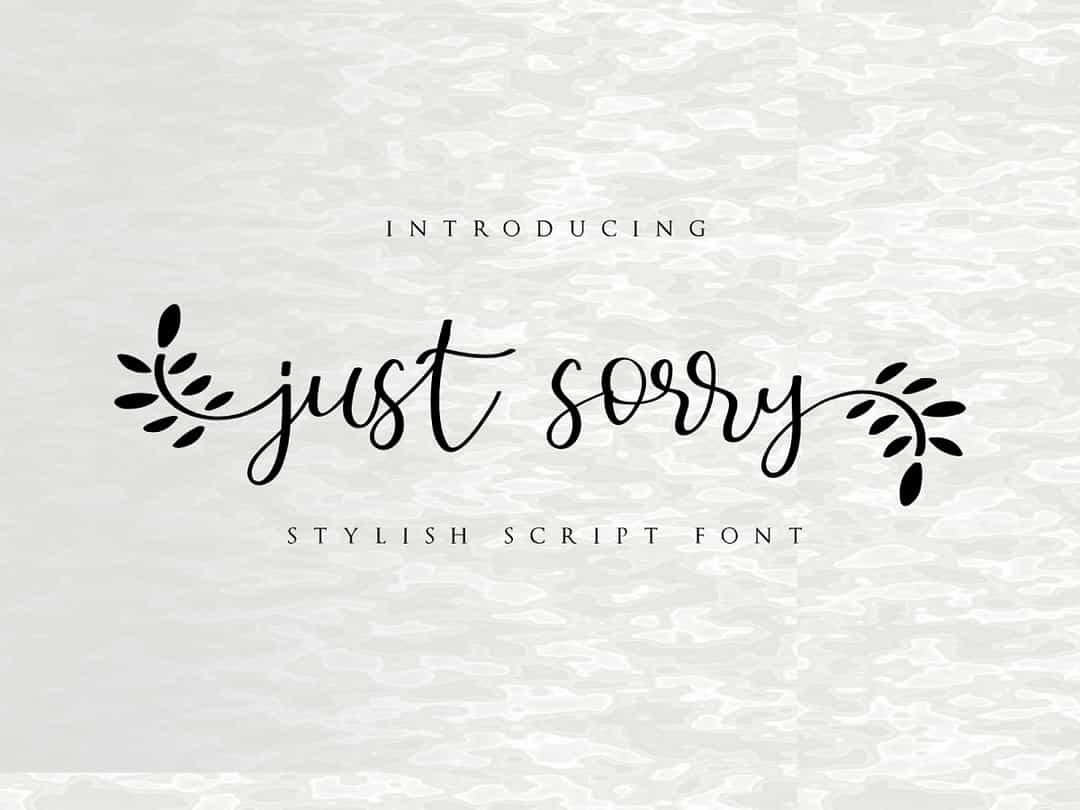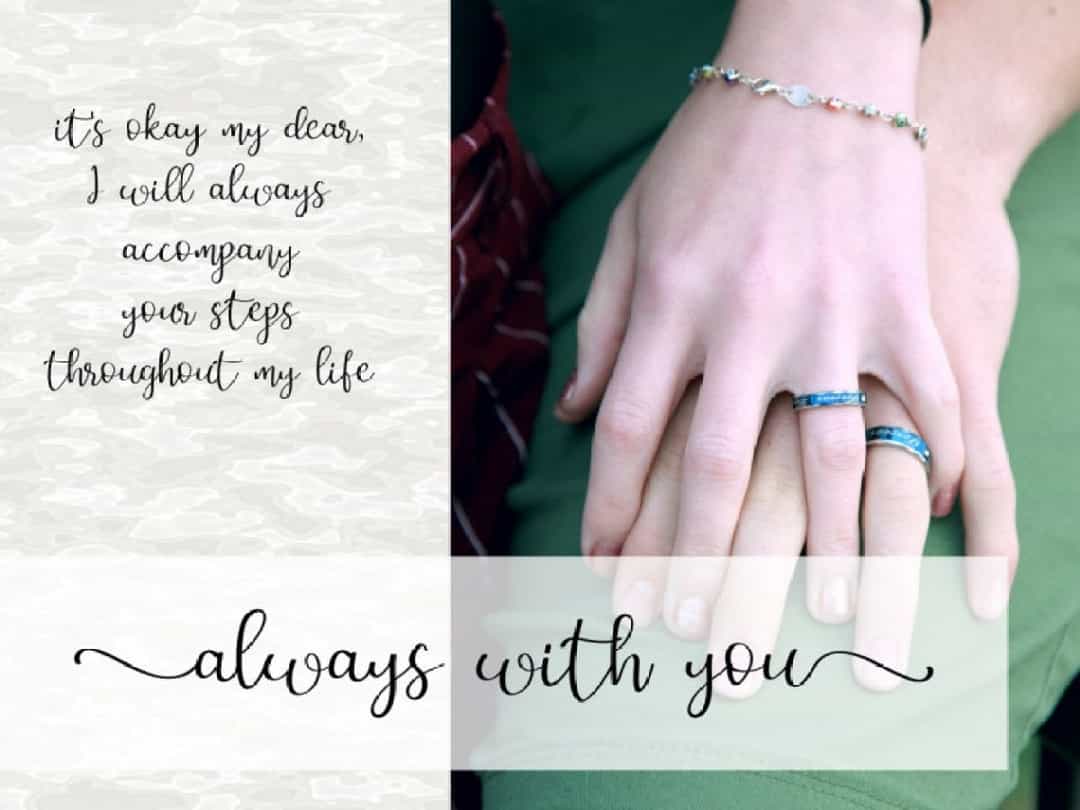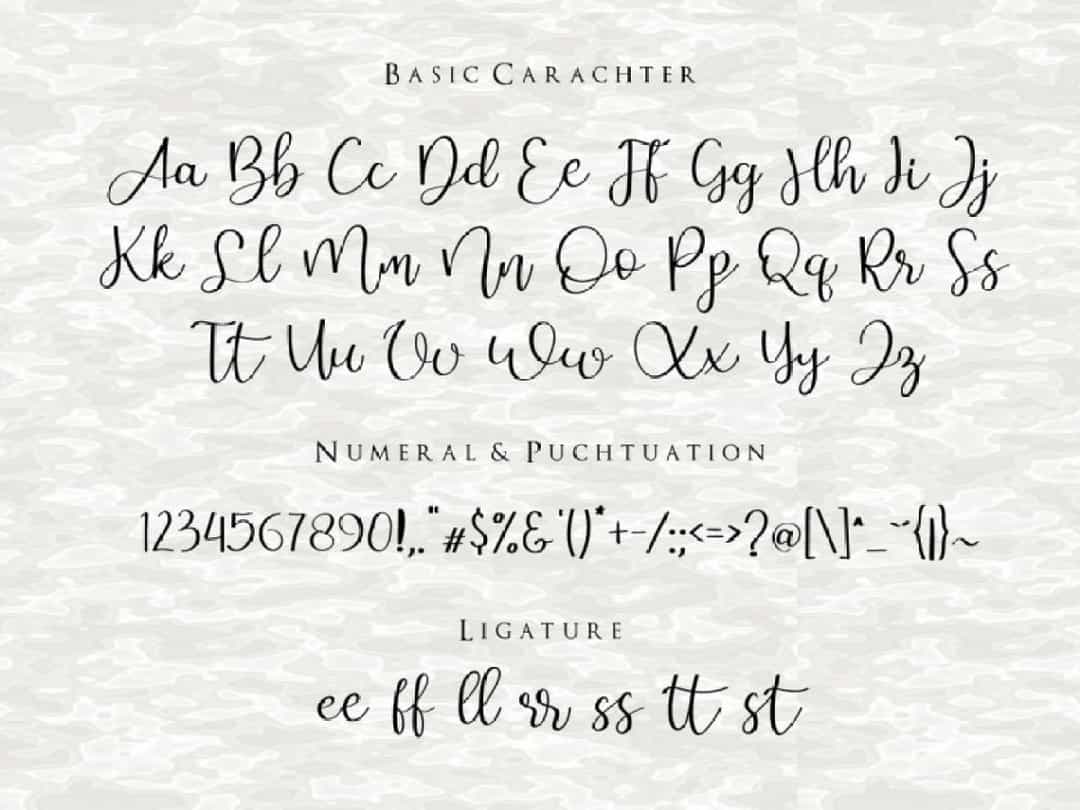
Just Sorry is an eye-catching phonetic script style of font. It has a diverse baseline with clean lines, beautiful characters, and beautiful alternates. Get the natural look and incorporate it for making beautiful wedding invitations, elegant stationery, aesthetically pleasing social media content, and sweet greeting cards.